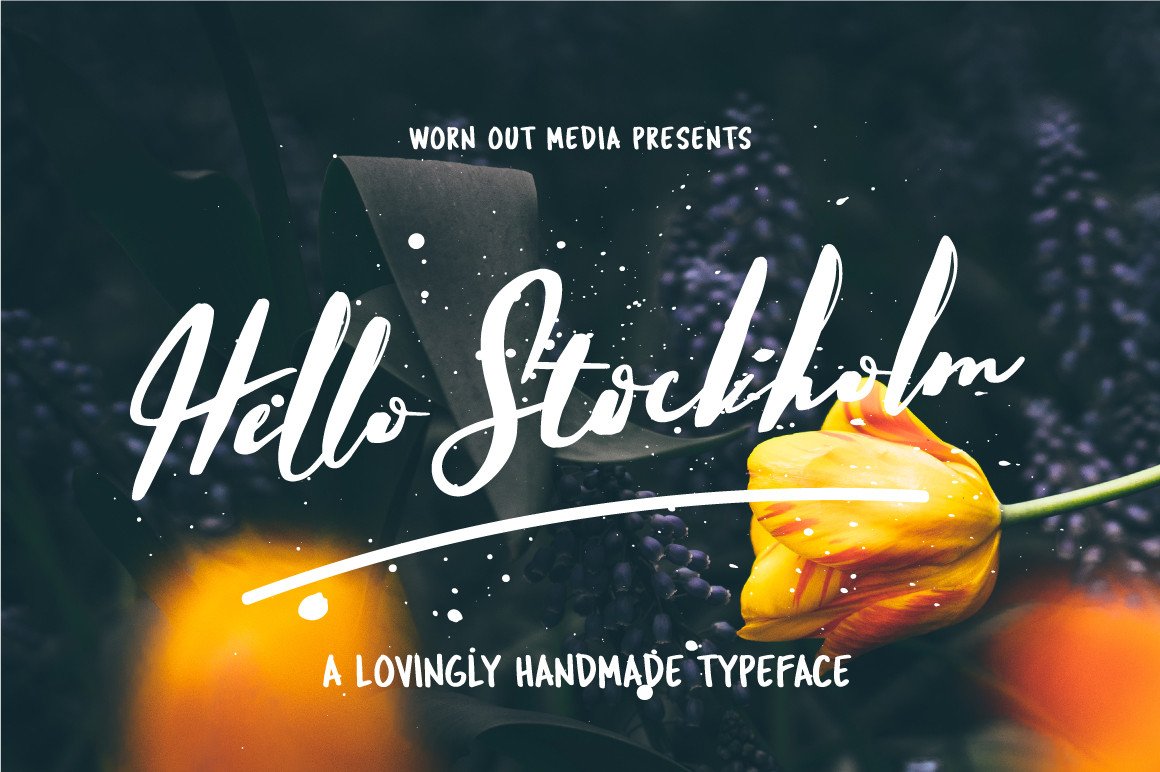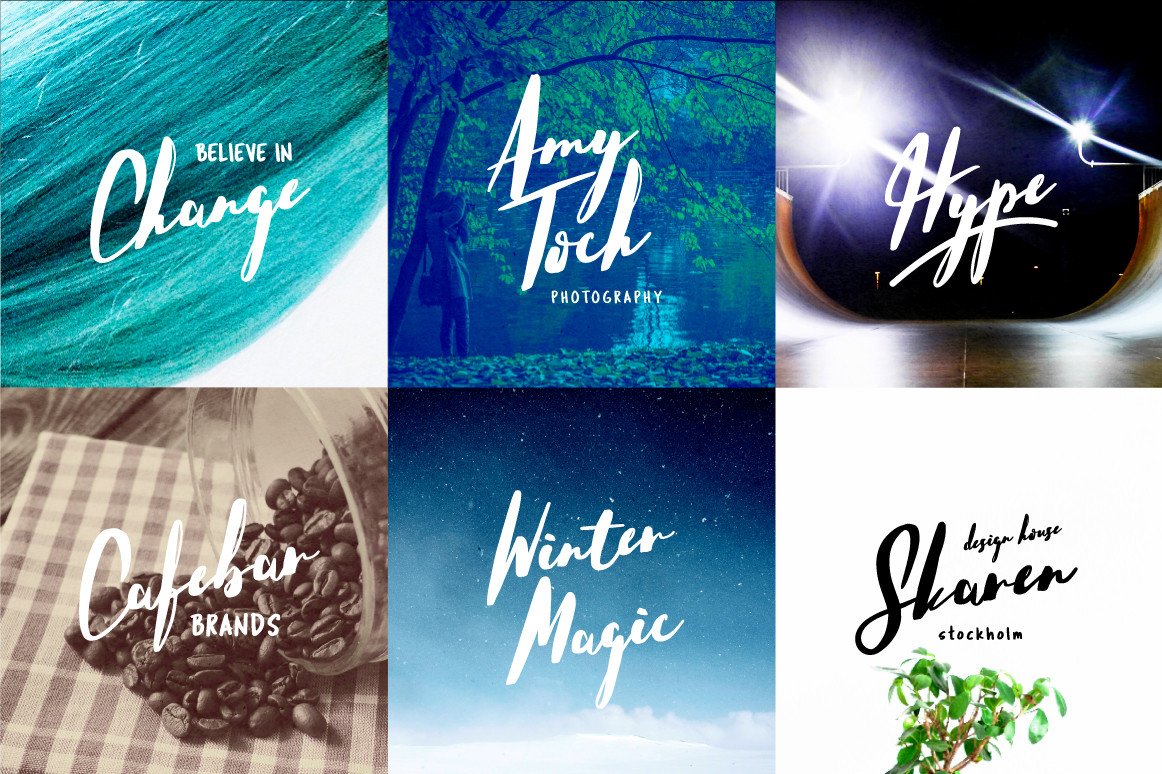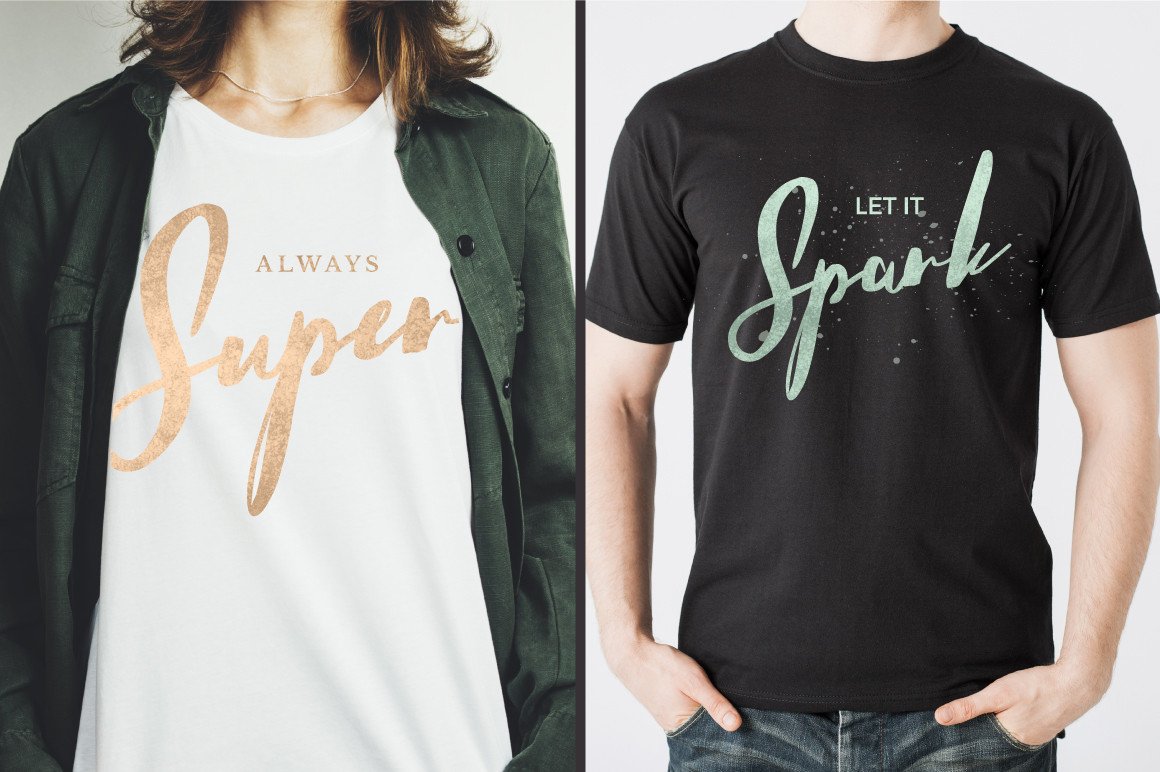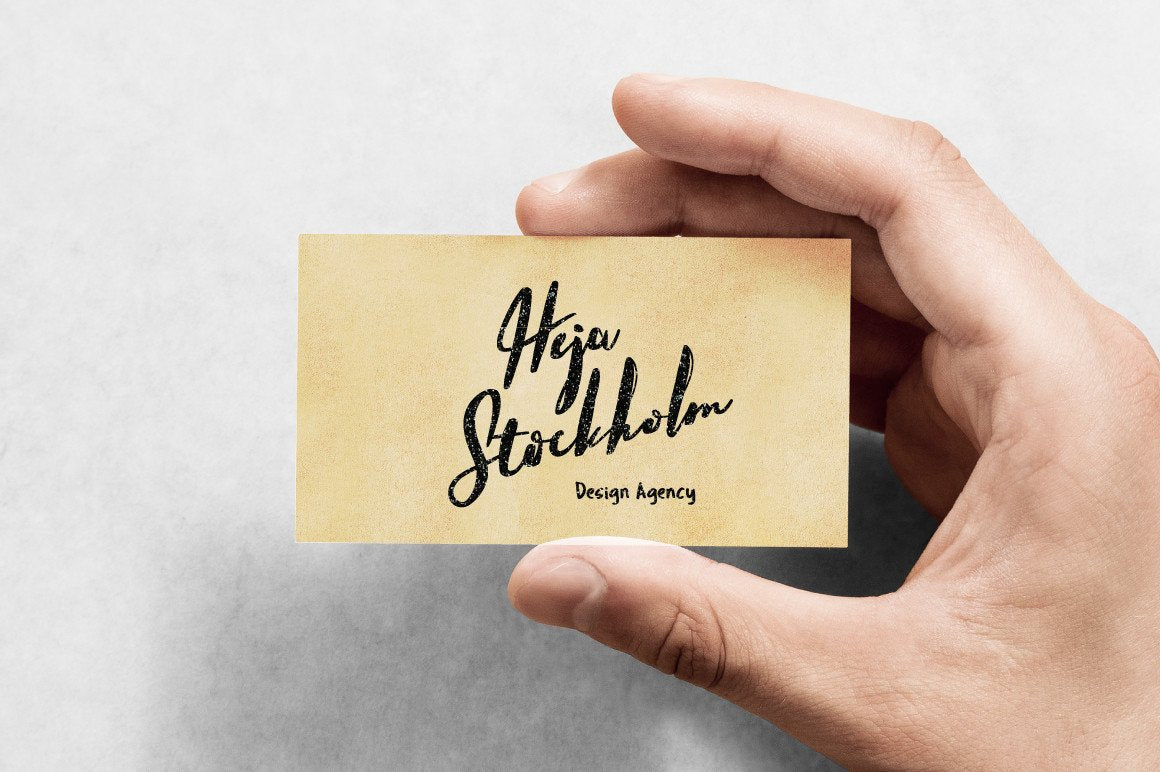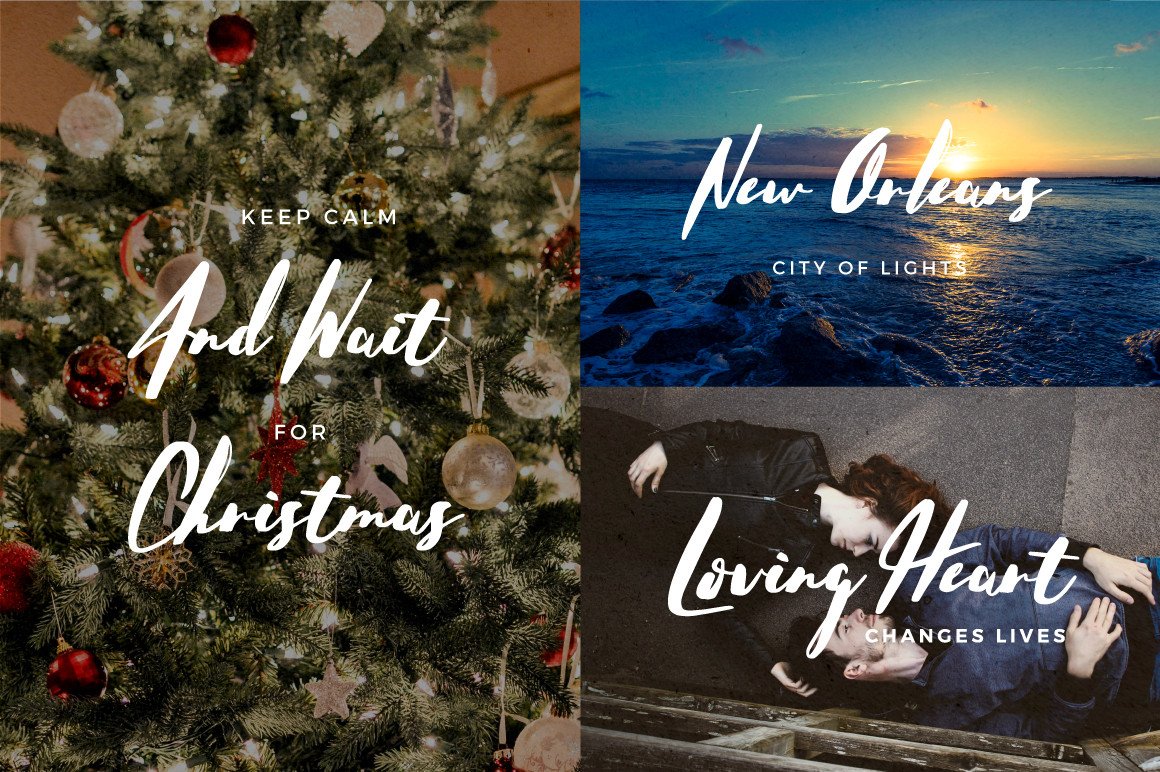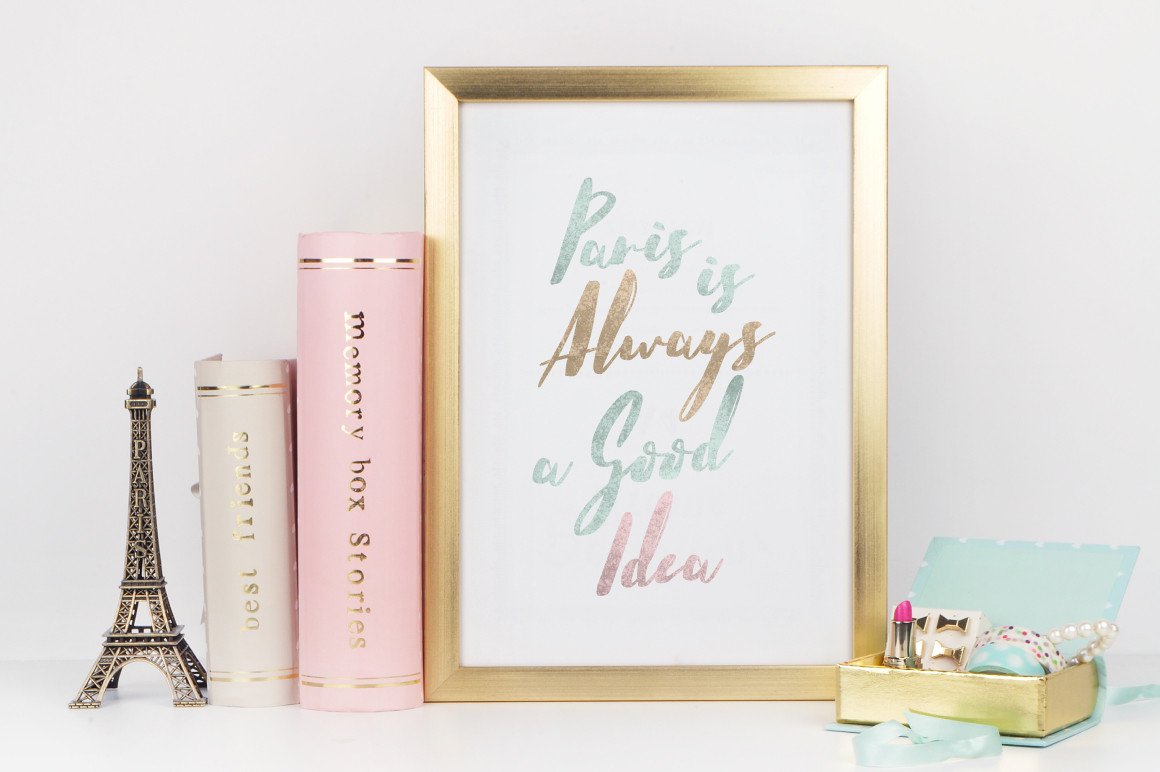
Hello Stockholm - Handmade Typeface
Introducing a lovingly handmade new typeface, Hello Stockholm! A fun and imperfect modern brushed script font with a tough of uniqueness driven by Scandinavian minimalism. Design like a professional with this typeface that fits perfectly for your wedding invitations, street ads, Instagram posts, t-shirt design, branding, and much more. This font is heavily inspired by modern branding where you combine a beautiful script with a perfectly fitting sans serif font. Including uppercase and lowercase alternates as another font with a multilingual support also. OTF and TTF filetypes are included for both fonts.